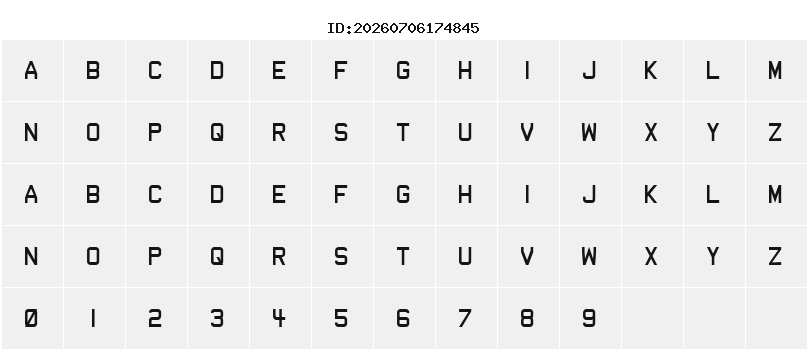
• Font Name: Dev Gothic
• Full Font Name: Dev Gothic
Dev Gothic.ttf is a modern, elegant sans-serif font designed for ultimate readability and visual harmony. Perfect for branding, headlines, web design, and print materials.